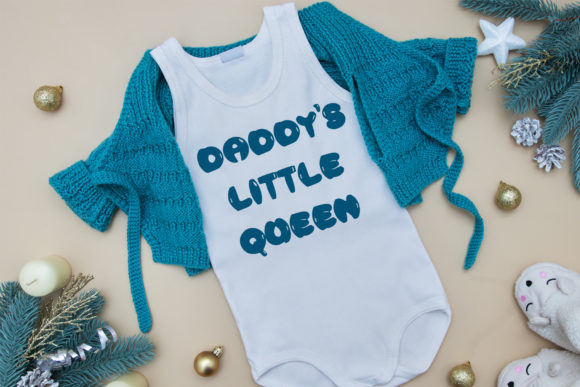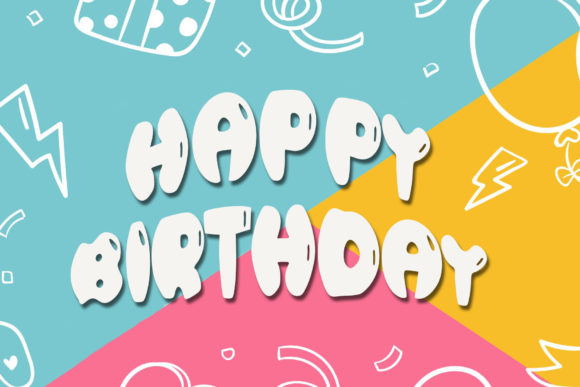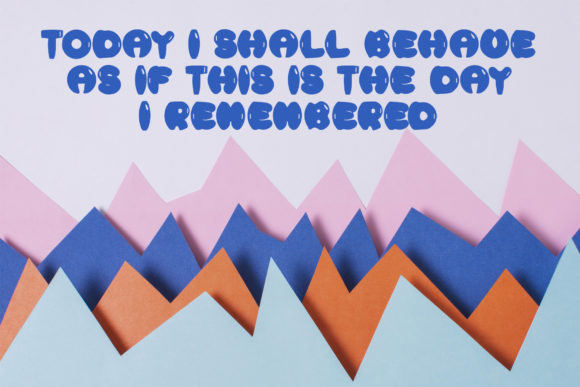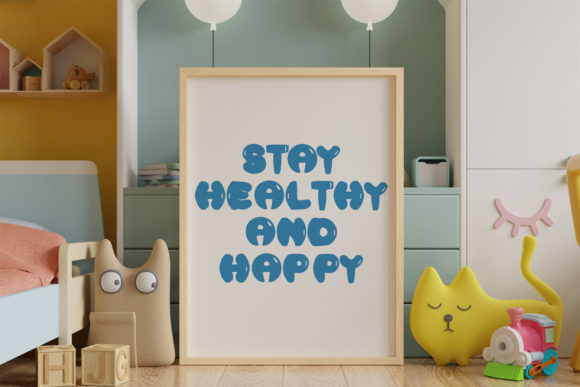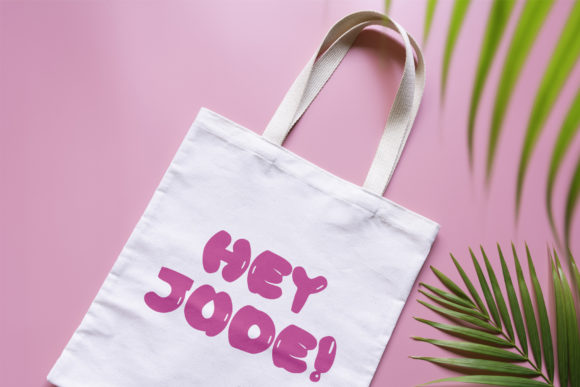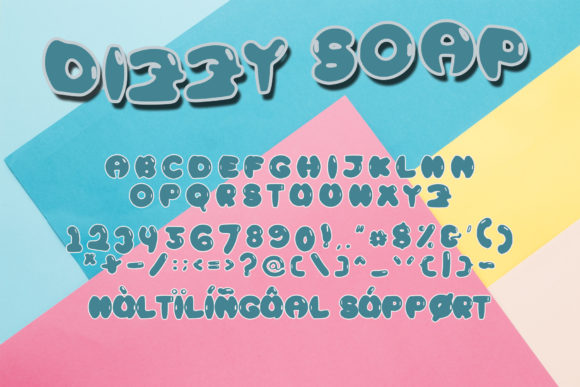
The Ultimate Design Game-Changer: Dizzy Soap Font
I’ll never forget the time I was working on a fun project for a client who wanted a playful, bubbly vibe for their brand. I spent hours scouring the internet for the perfect font, but nothing seemed quite right. That was until I stumbled upon Dizzy Soap – an all-caps, playful display font that instantly elevated my design. In this article, I’ll share my experience with Dizzy Soap, its features, and how to make the most of it in your designs.
An Honest Review of Dizzy Soap
What I Love About Dizzy Soap ✨
- ✅ Playful and Bubbly Personality: Dizzy Soap is perfect for designs that need a fun and carefree vibe.
- ✅ PUA Encoded: This means you can access all the glyphs and swashes with ease, making it a breeze to customize your text.
- ✅ All-Caps Design: The font’s all-caps design makes it perfect for headings, titles, and short phrases.
- ✅ Highly Versatile: Whether you’re working on a logo, poster, or social media graphic, Dizzy Soap can adapt to any design style.
While Dizzy Soap is an amazing font, there are a few things to keep in mind:
- ⚠️ Not Suitable for Body Text: Due to its playful and decorative nature, Dizzy Soap is best used for headings and titles, rather than body text.
- ⚠️ Limited Use in Formal Designs: This font is perfect for fun and creative projects, but might not be the best fit for formal or professional designs.
The Story Behind Dizzy Soap
Dizzy Soap was created by a talented font designer who wanted to create a font that would bring a smile to people’s faces. Inspired by the playful and bubbly world of soap bubbles, the designer crafted a font that’s both fun and functional. Whether you’re a designer, crafter, or creative hobbyist, Dizzy Soap is sure to become a favorite in your font library.
Q: What is PUA encoding, and how does it work?
A: PUA (Private Use Area) encoding is a way of encoding font characters that allows for easy access to glyphs and swashes. This means you can use Dizzy Soap’s full range of features without needing to install additional software or plugins.
Q: Is Dizzy Soap suitable for digital and print designs?
A: Absolutely! Dizzy Soap is designed to work well in both digital and print designs. Its clear and playful design makes it perfect for a wide range of applications, from social media graphics to posters and flyers.